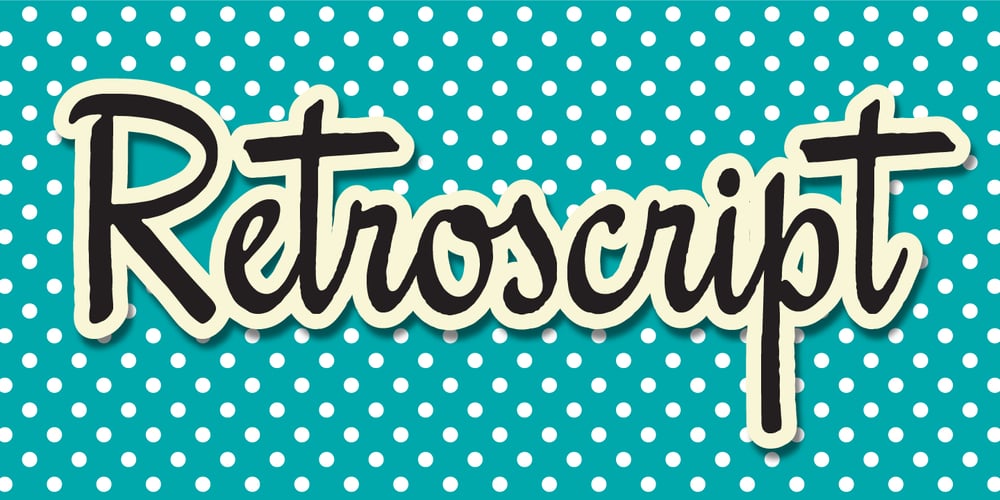
Retroscript BF Font Family was designed by John Bomparte and published by Bomparte’s Fonts. Retroscript BF contains 1 styles and family package options. Service with a smile. Fifties style. Retroscript BF is sure to please. Inspired by handlettering for a headline on a 1940’s furniture ad, it’s got a cool Forties and Fifties flavor; and gee whiz, the capital letters of this script font even go together well! Retroscript BF contains a number of ligatures and contextual alternates. Enable these features in OpenType-savvy programs (such as InDesign CS+, Illustrator CS+ and QuarkXpress 7 and later) to enhance your typography.